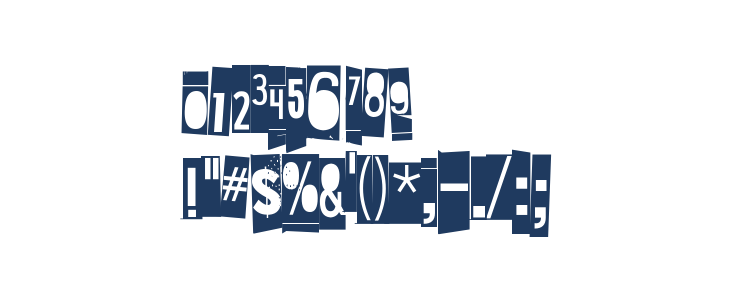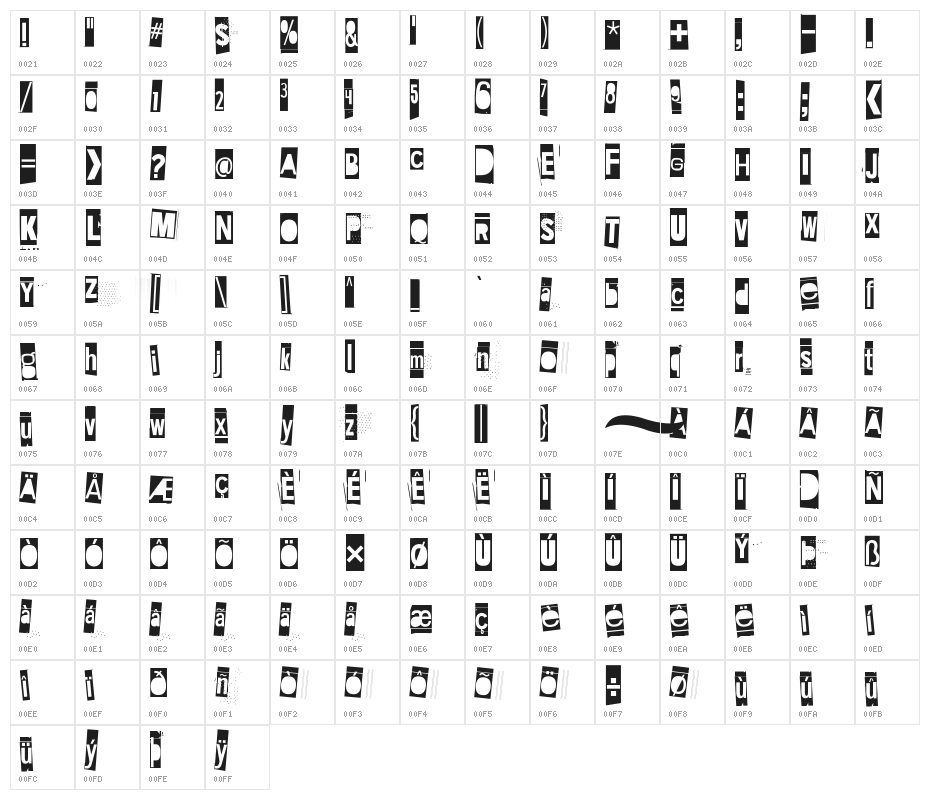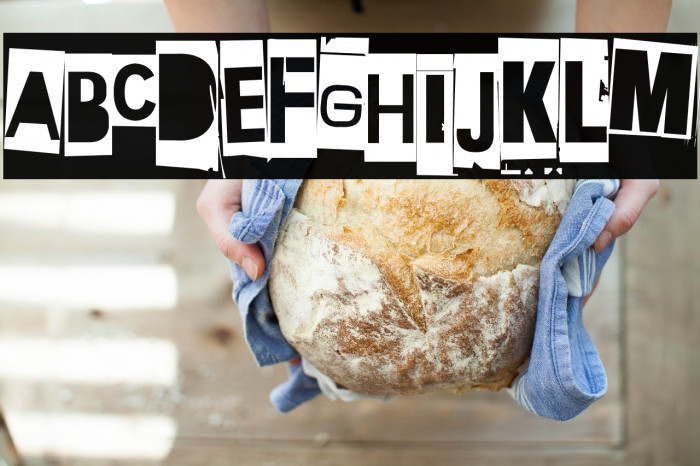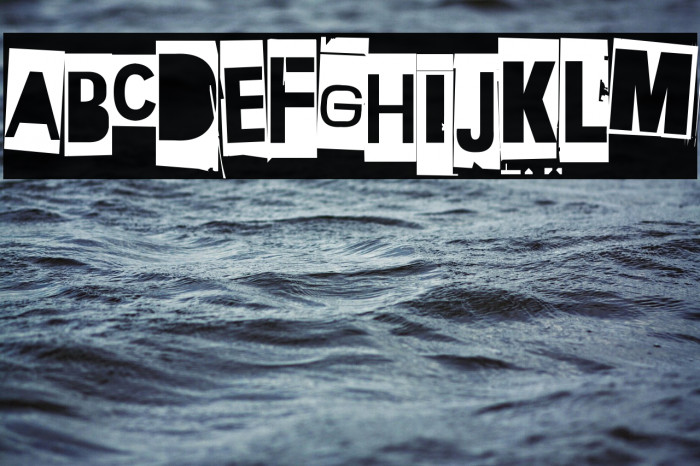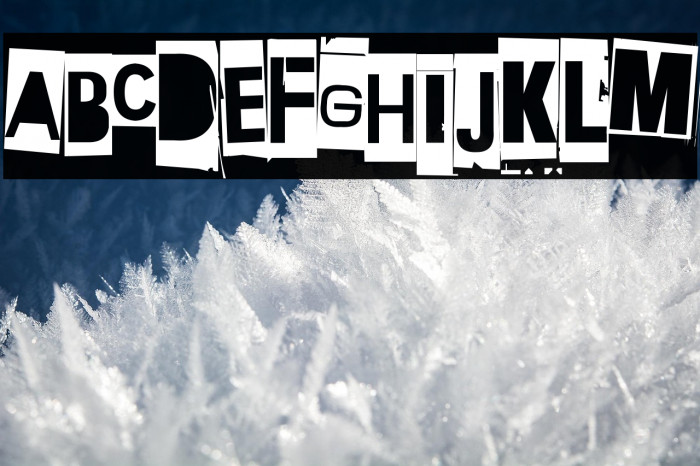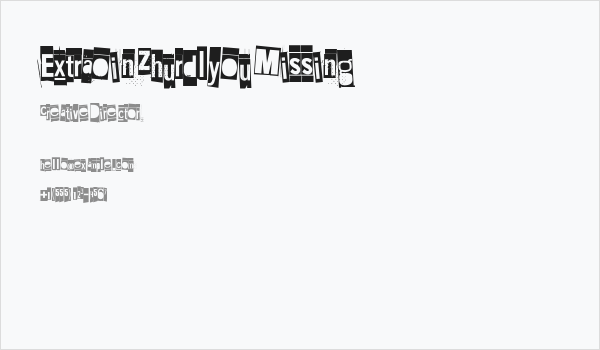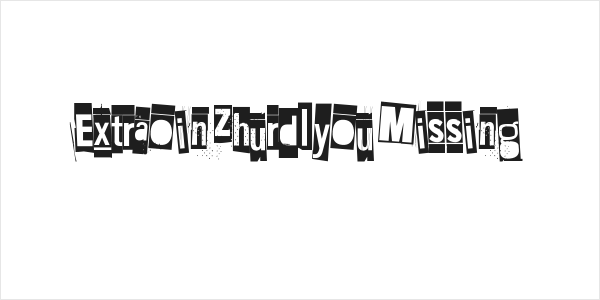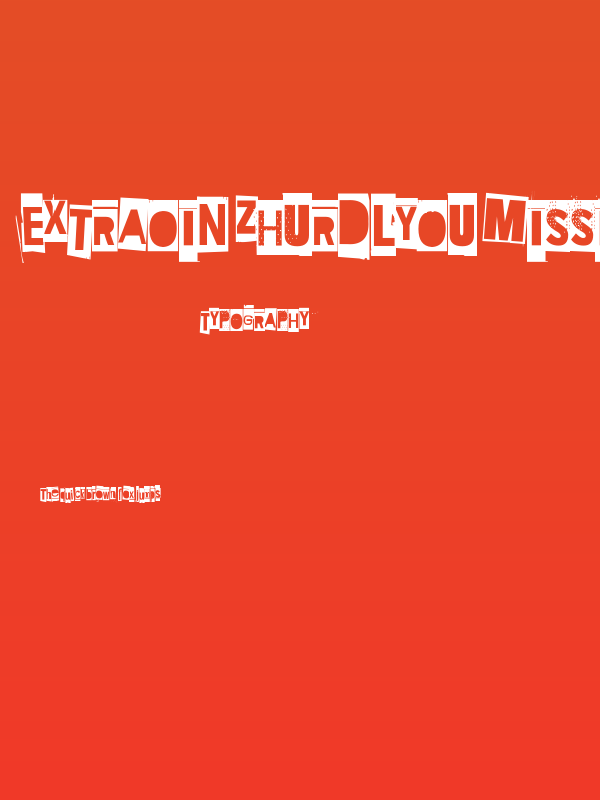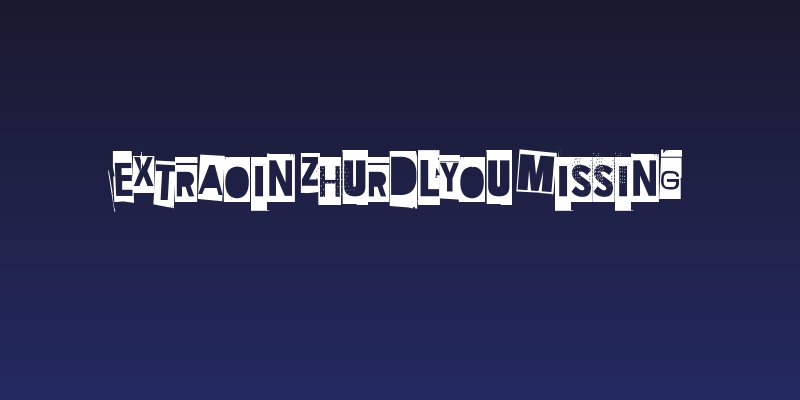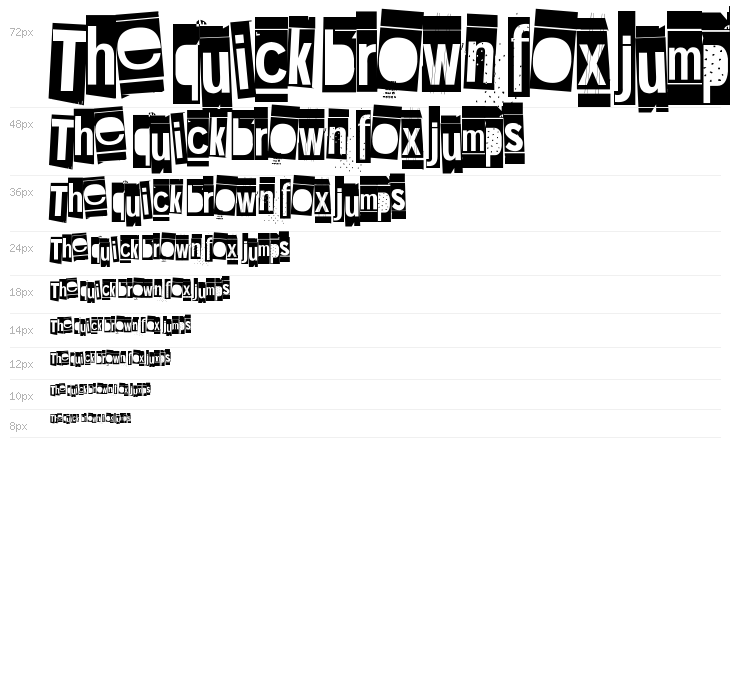
Extraoin Zhurdlyou Missing Font
Extraoin Zhurdlyou Missing Description
This font features a unique and eclectic style, reminiscent of a ransom note or collage, with each character appearing as if cut from different sources. The letters are bold and vary in size, orientation, and style, creating a chaotic yet artistic look. The uppercase and lowercase letters, as well as numbers and special characters, are all distinct, with some characters having a distressed or textured appearance. This font is designed to grab attention and convey a sense of urgency or creativity.
| Use Case | Headlines, Posters, Artistic Designs |
| Proposed Projects | Ideal for creative projects such as posters, album covers, or any design requiring a bold, unconventional look. |